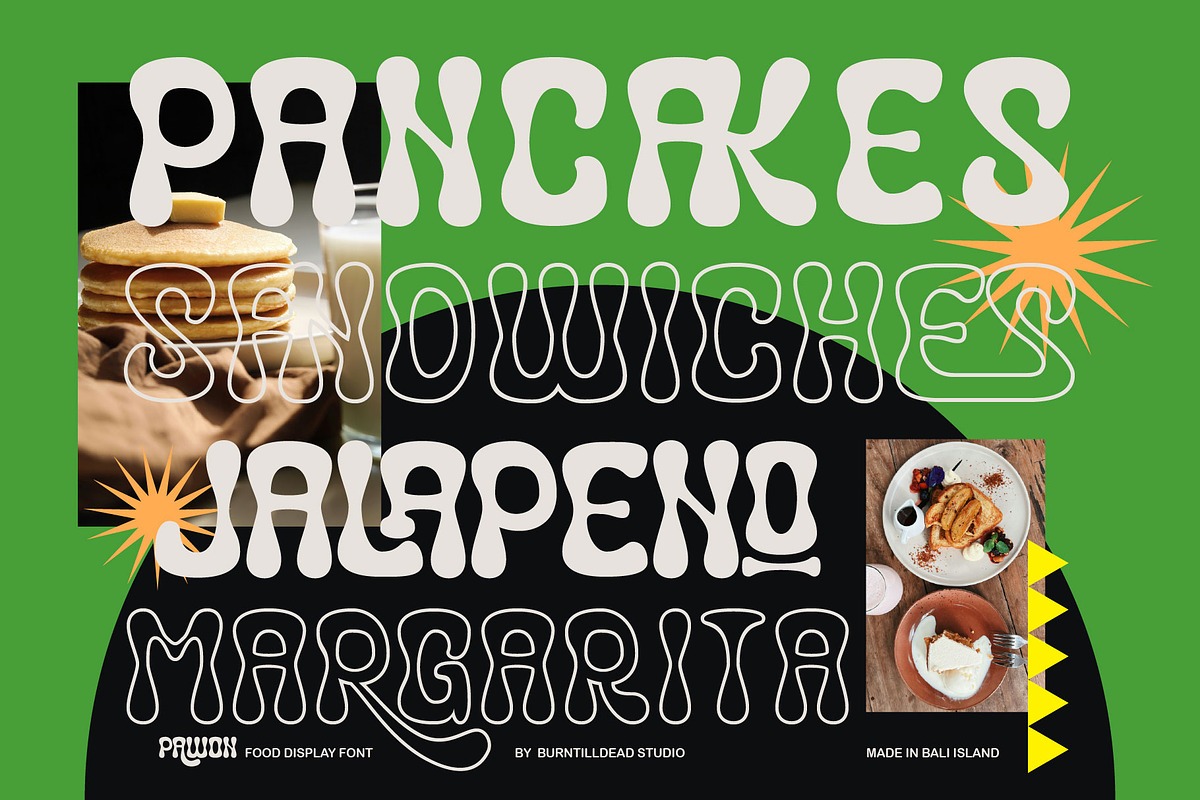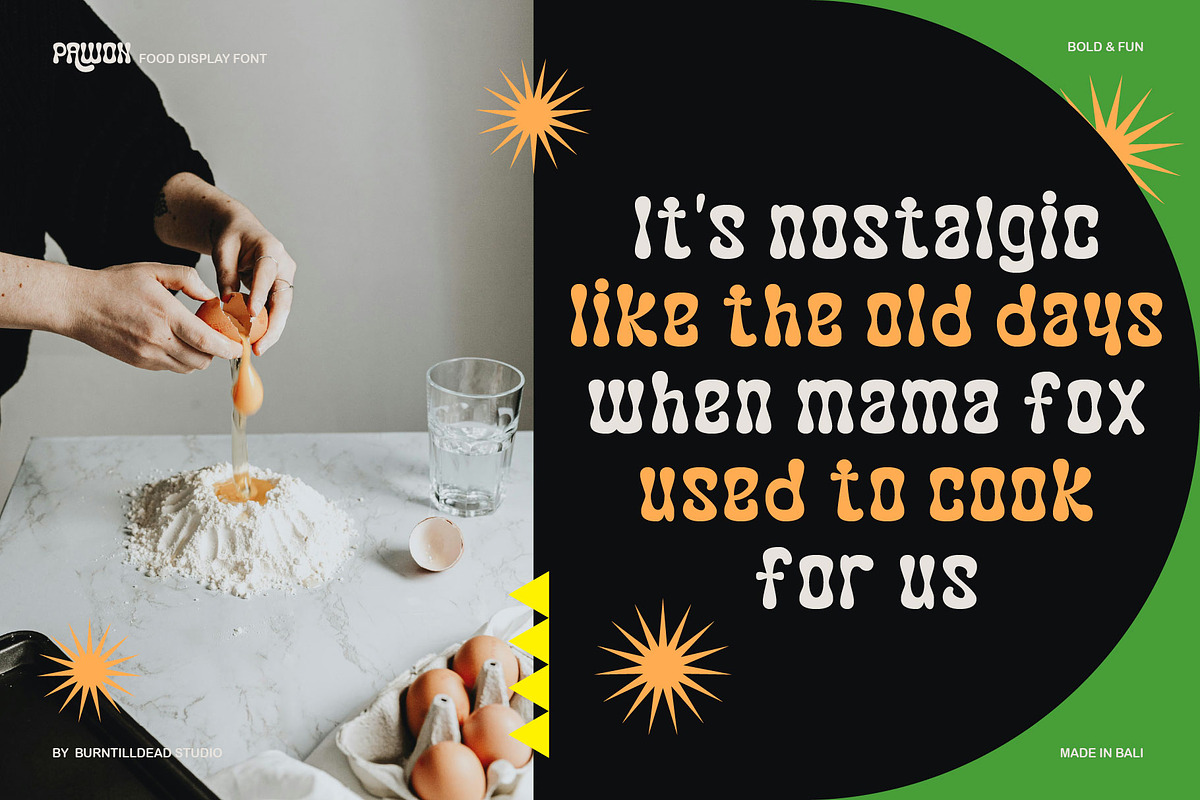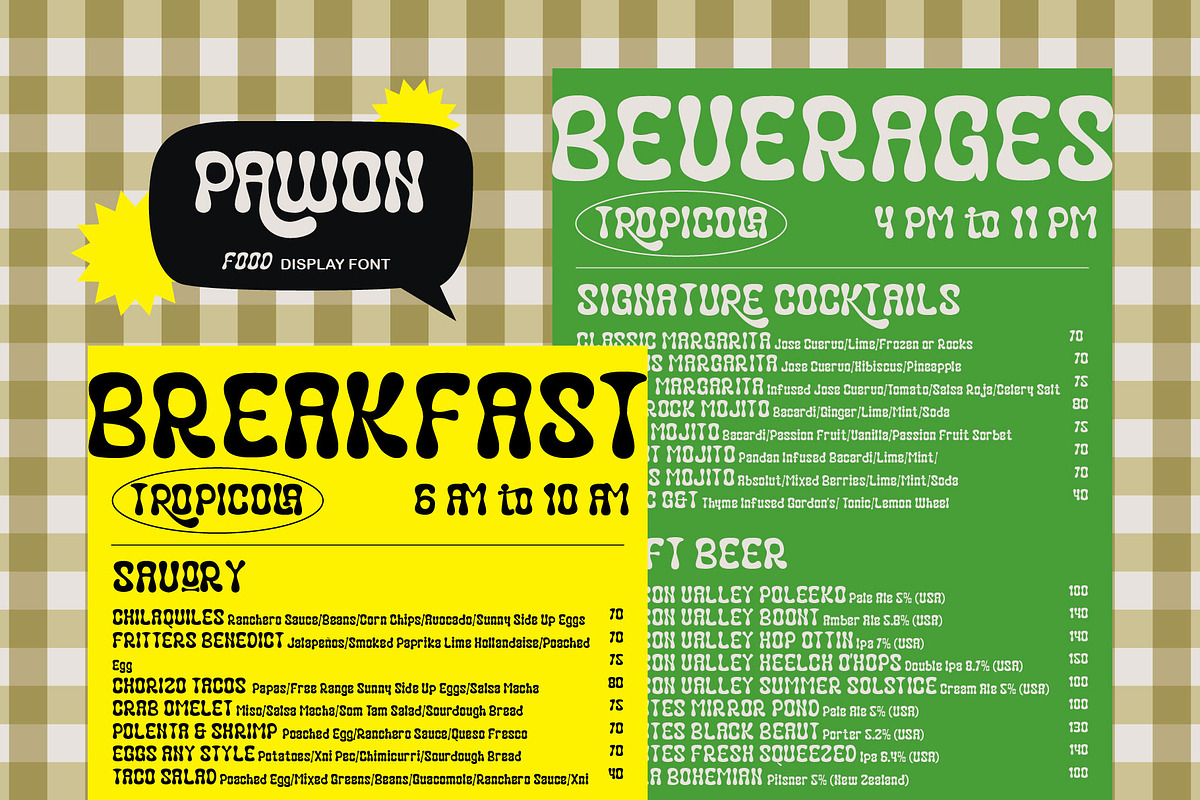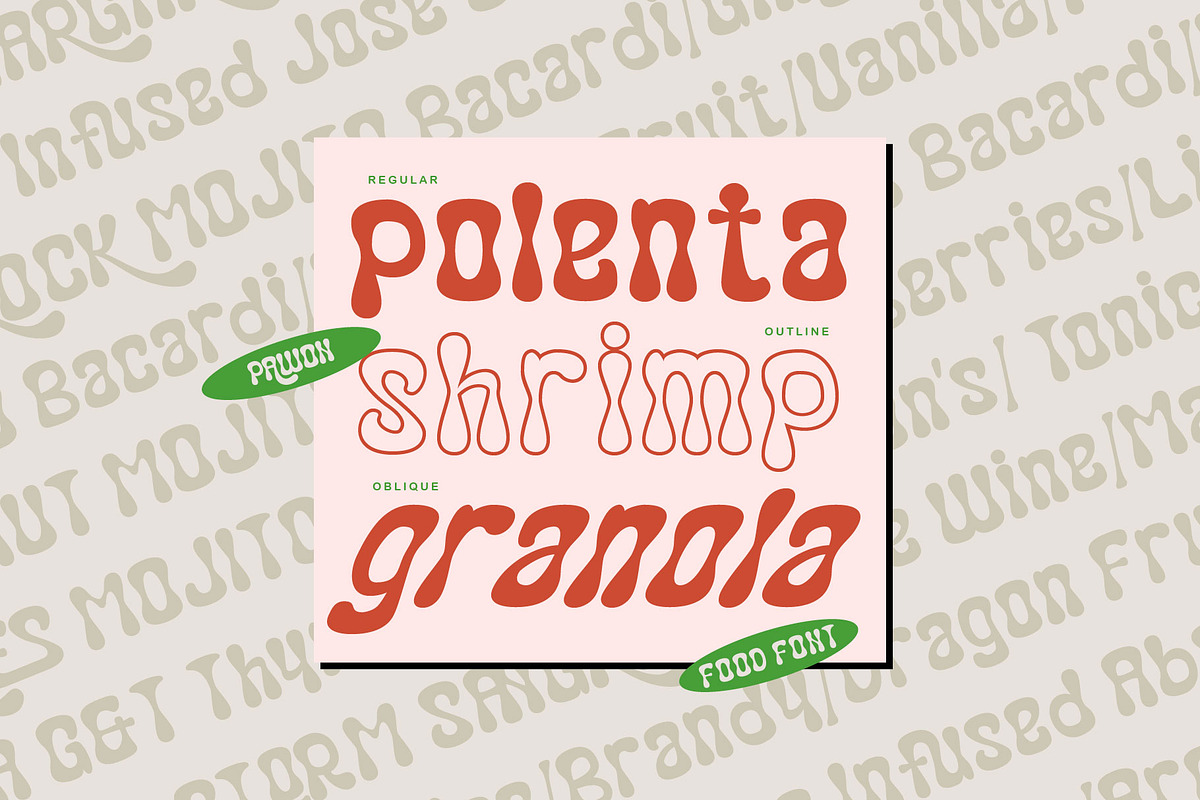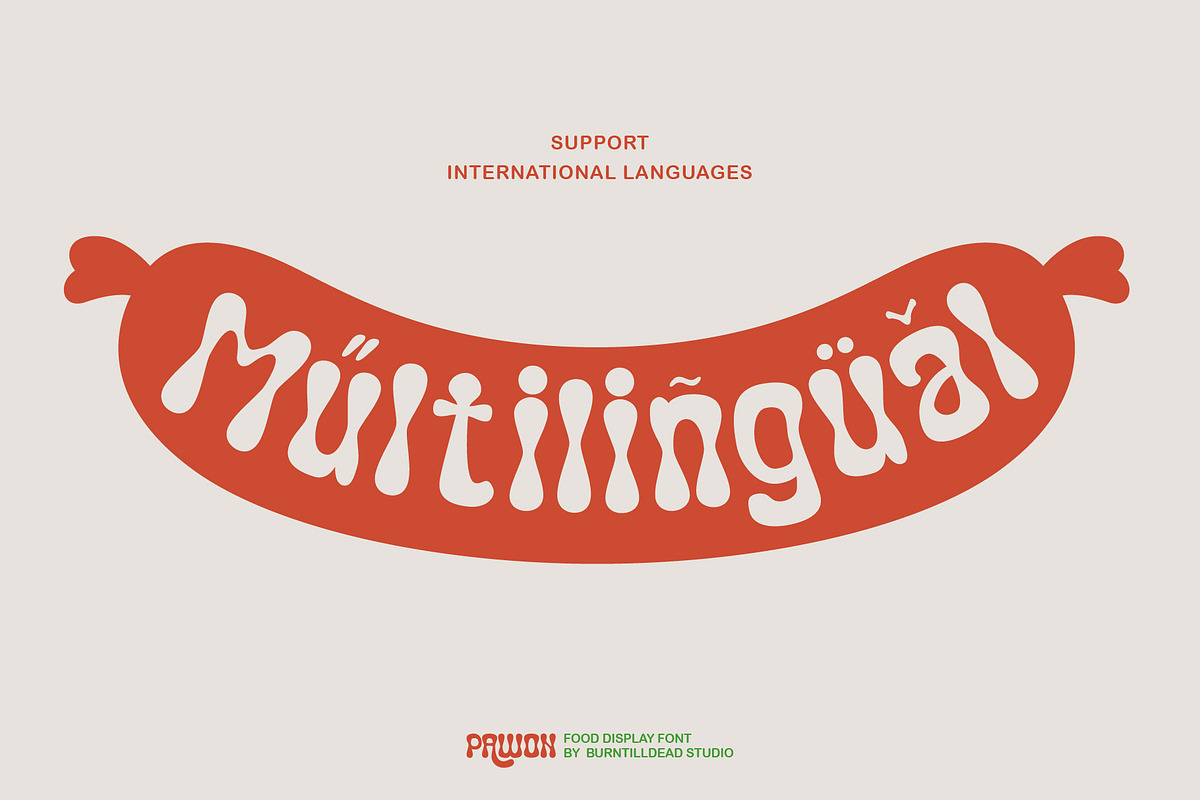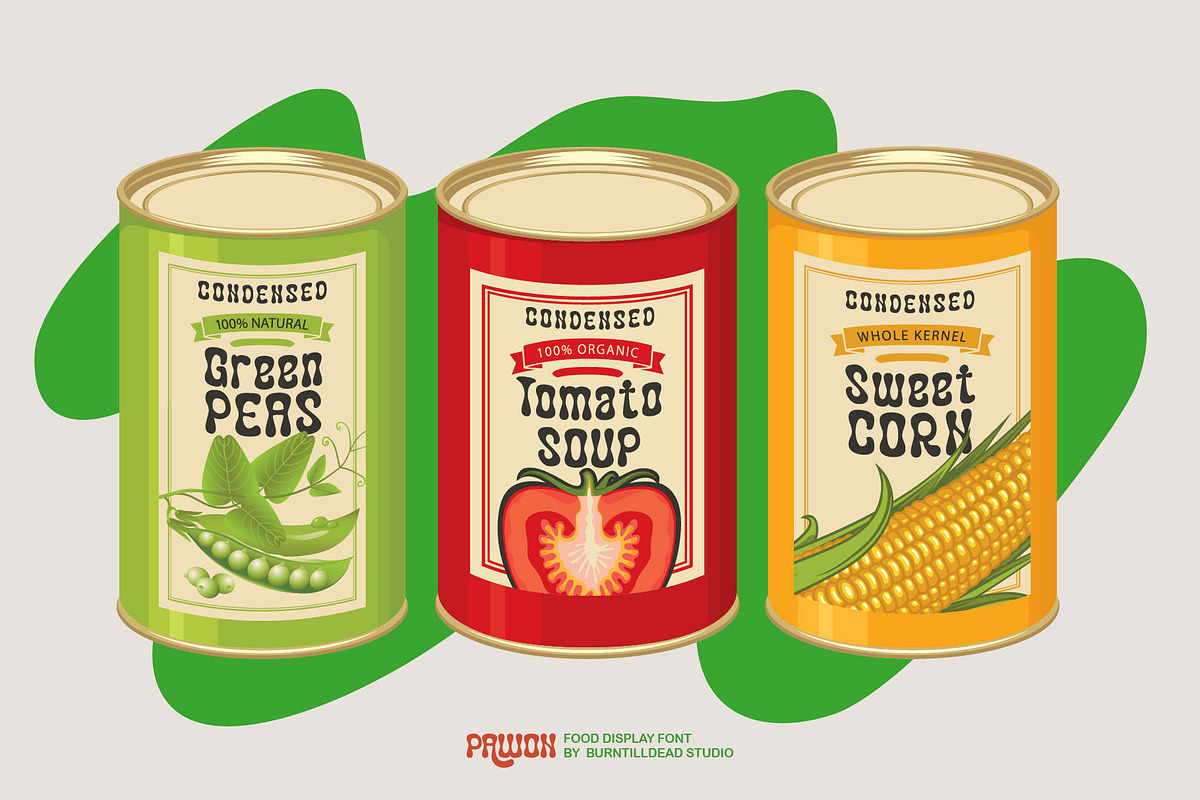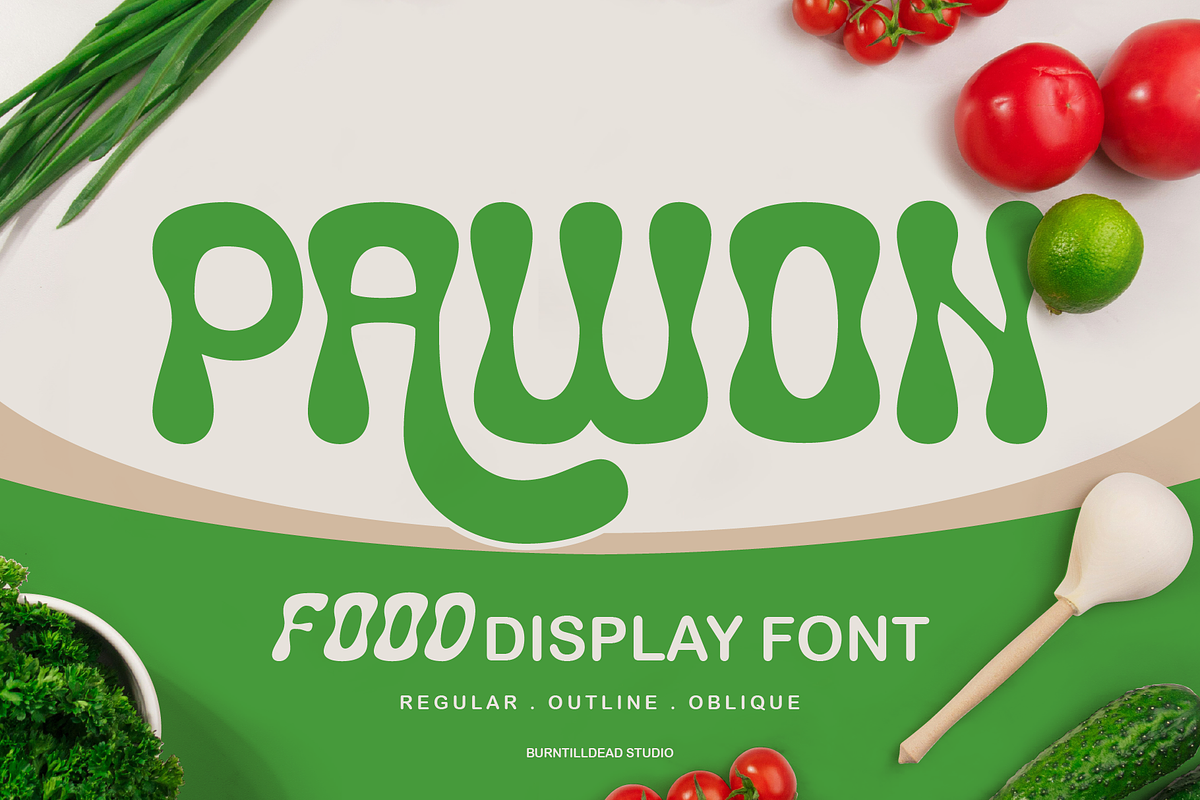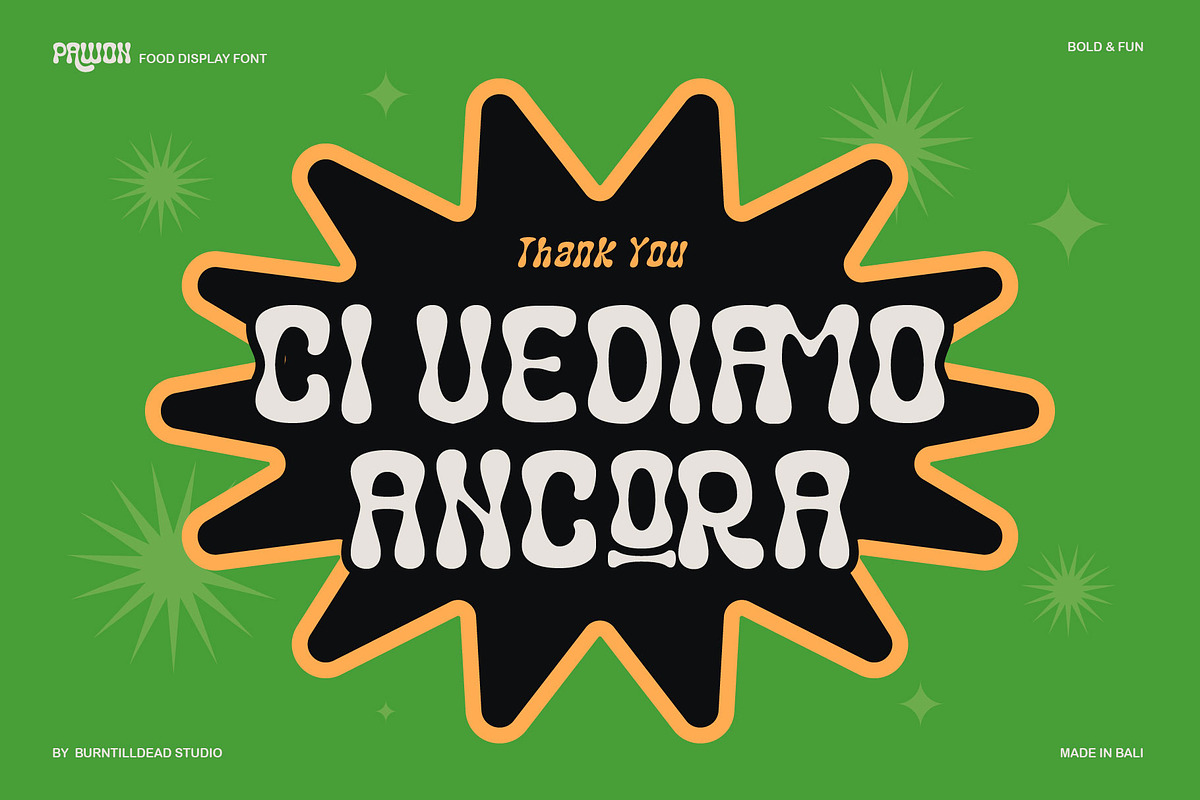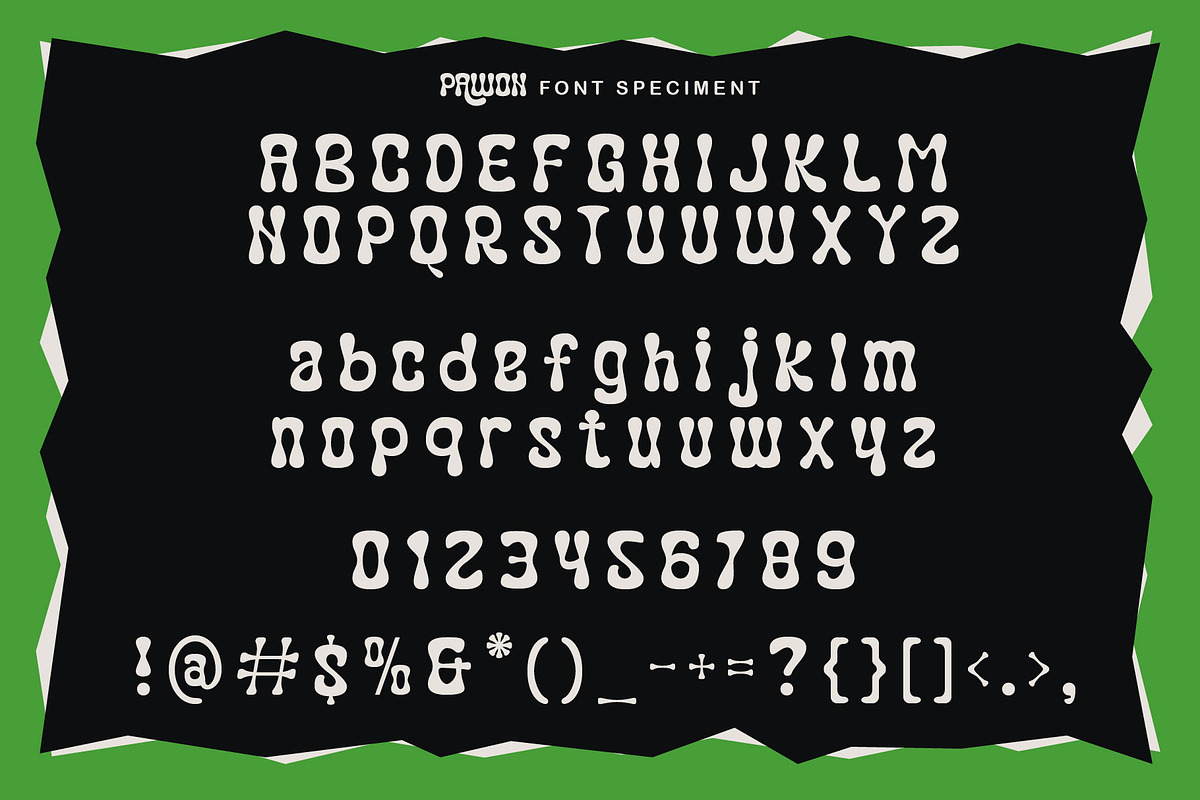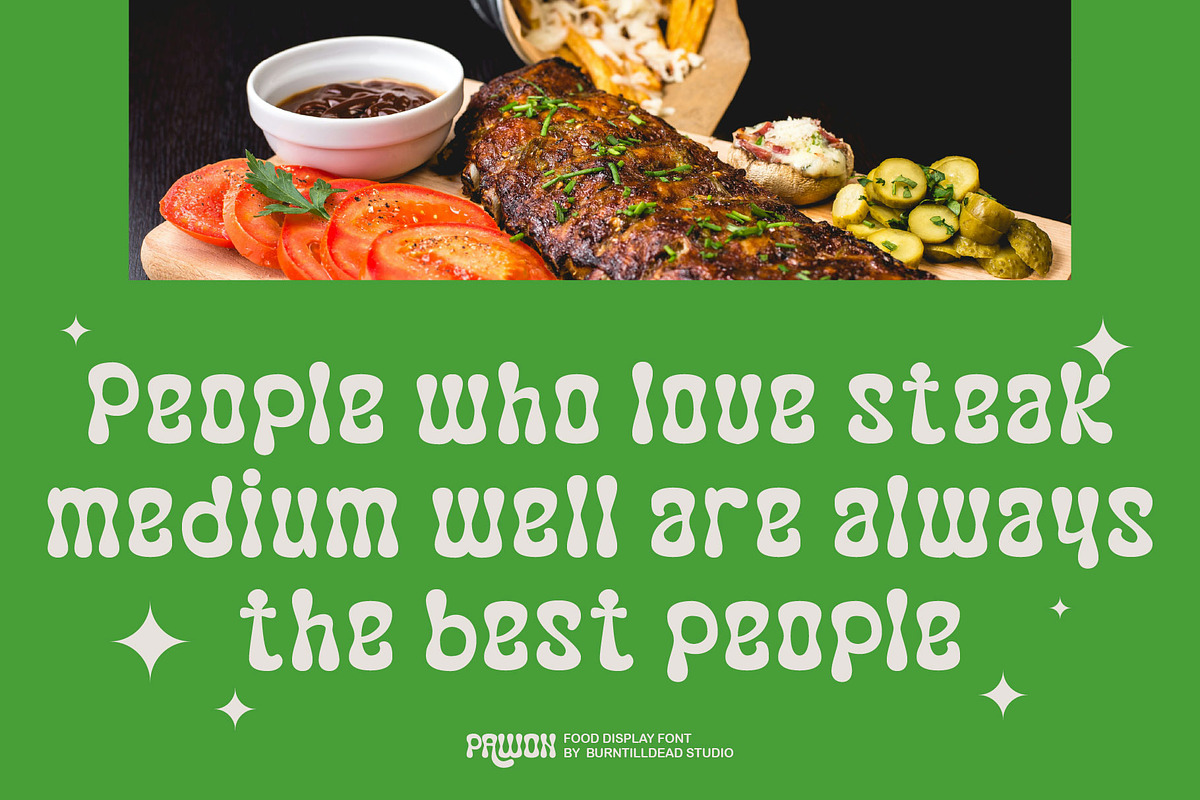
Pawon
Meet Pawon, a fresh, bold and playful food font, perfect for food branding, restaurant menus, food packaging, and culinary design projects. Its smooth, wavy letterforms bring a lively and inviting feel, making your design look delicious and eye-catching. Designed for food-related businesses, cafes, bakeries, and organic product branding, Pawon comes in three styles: Regular, Outline, and Oblique. Whether you're creating a logo, menu, social media content, or food advertisements, Pawon adds a tasty and fresh touch to your designs.
- A - Z set (Uppercase & Lowercase)